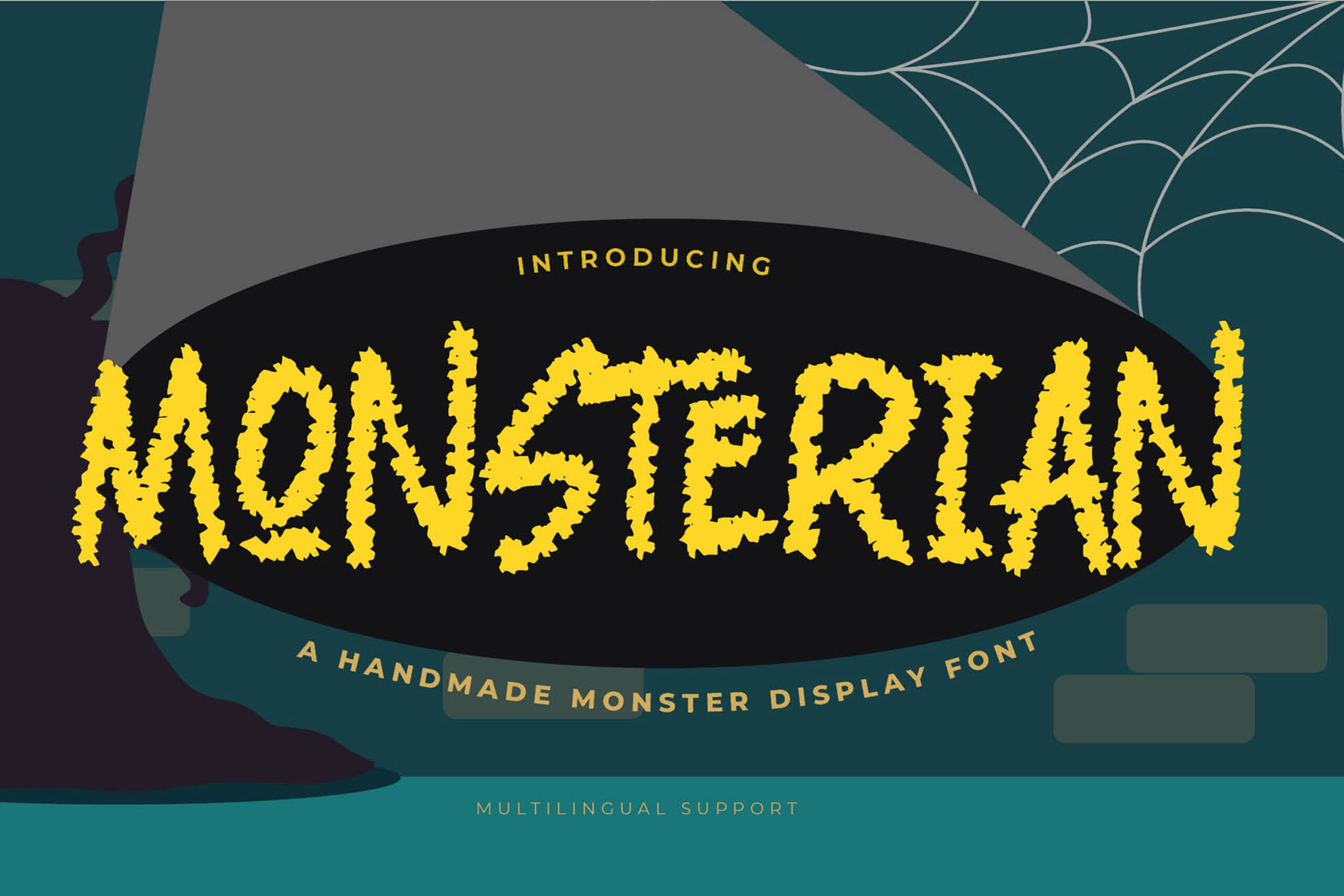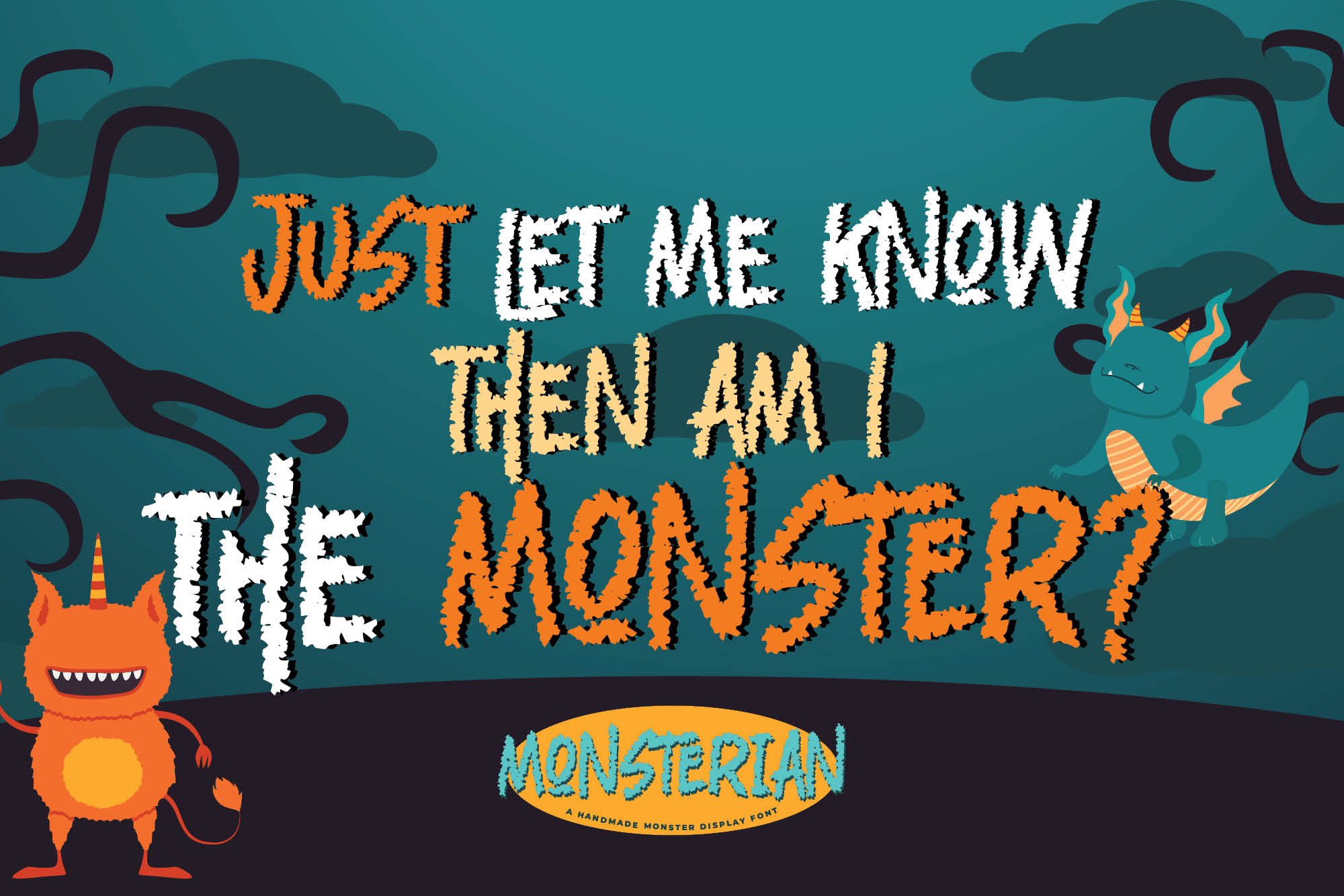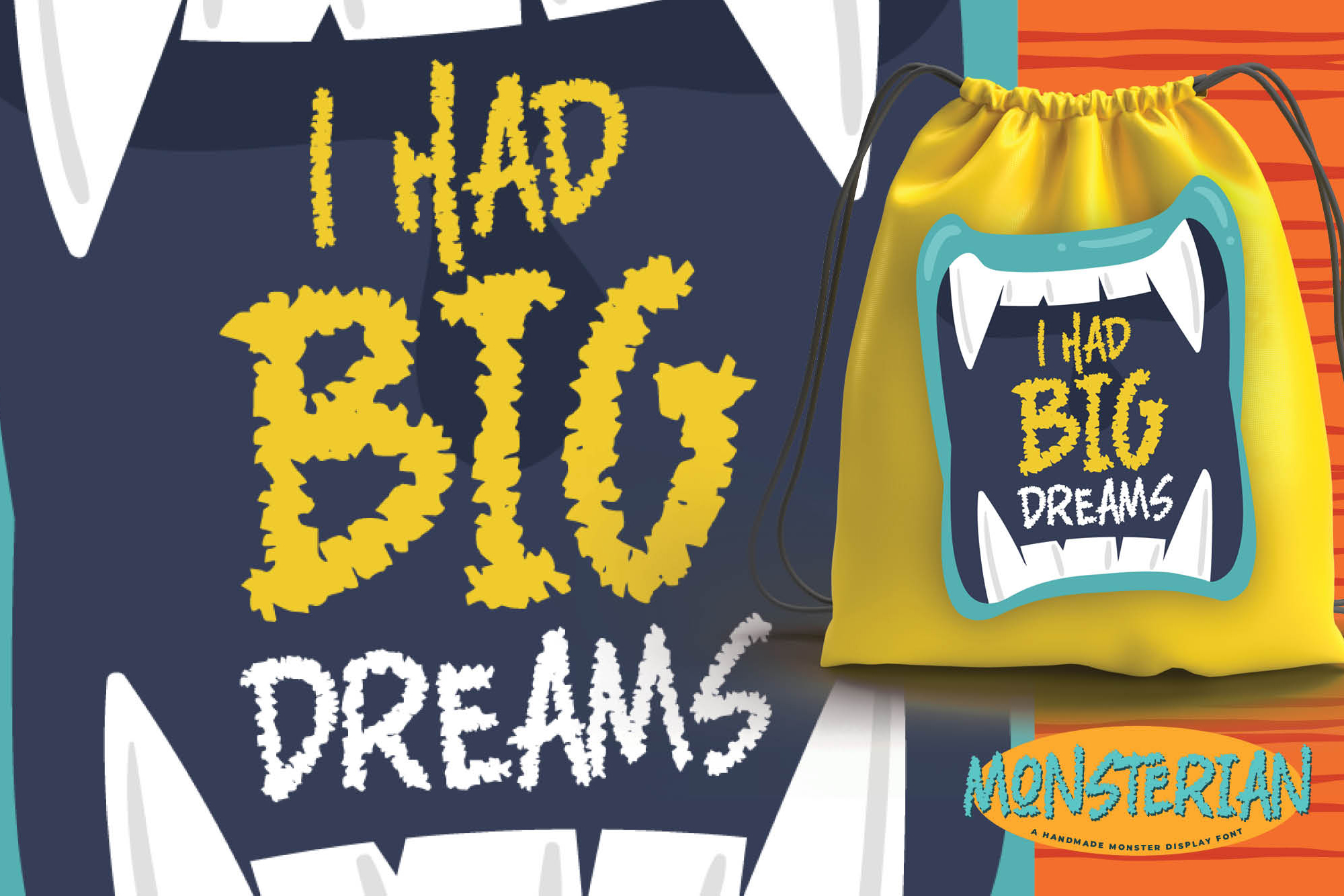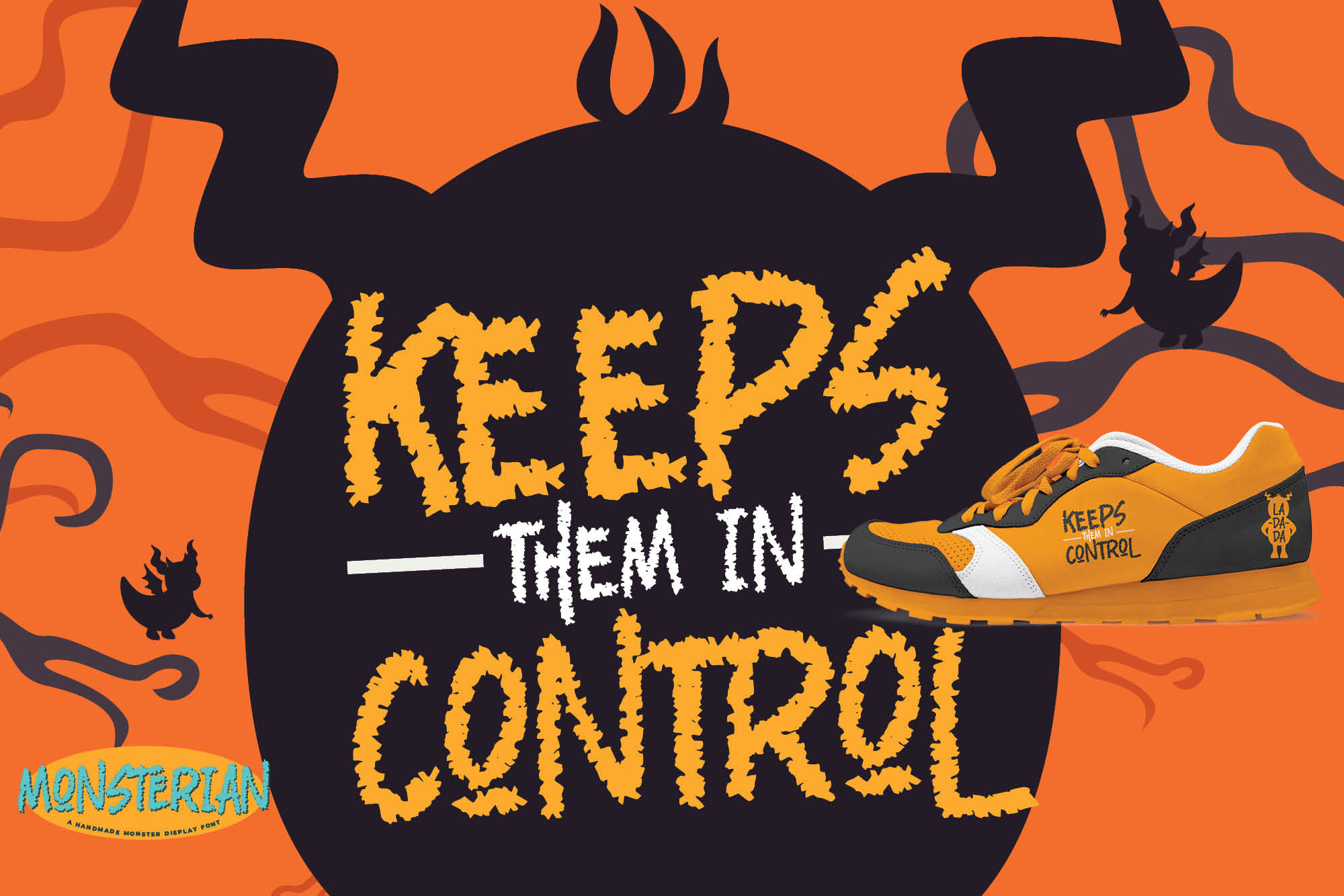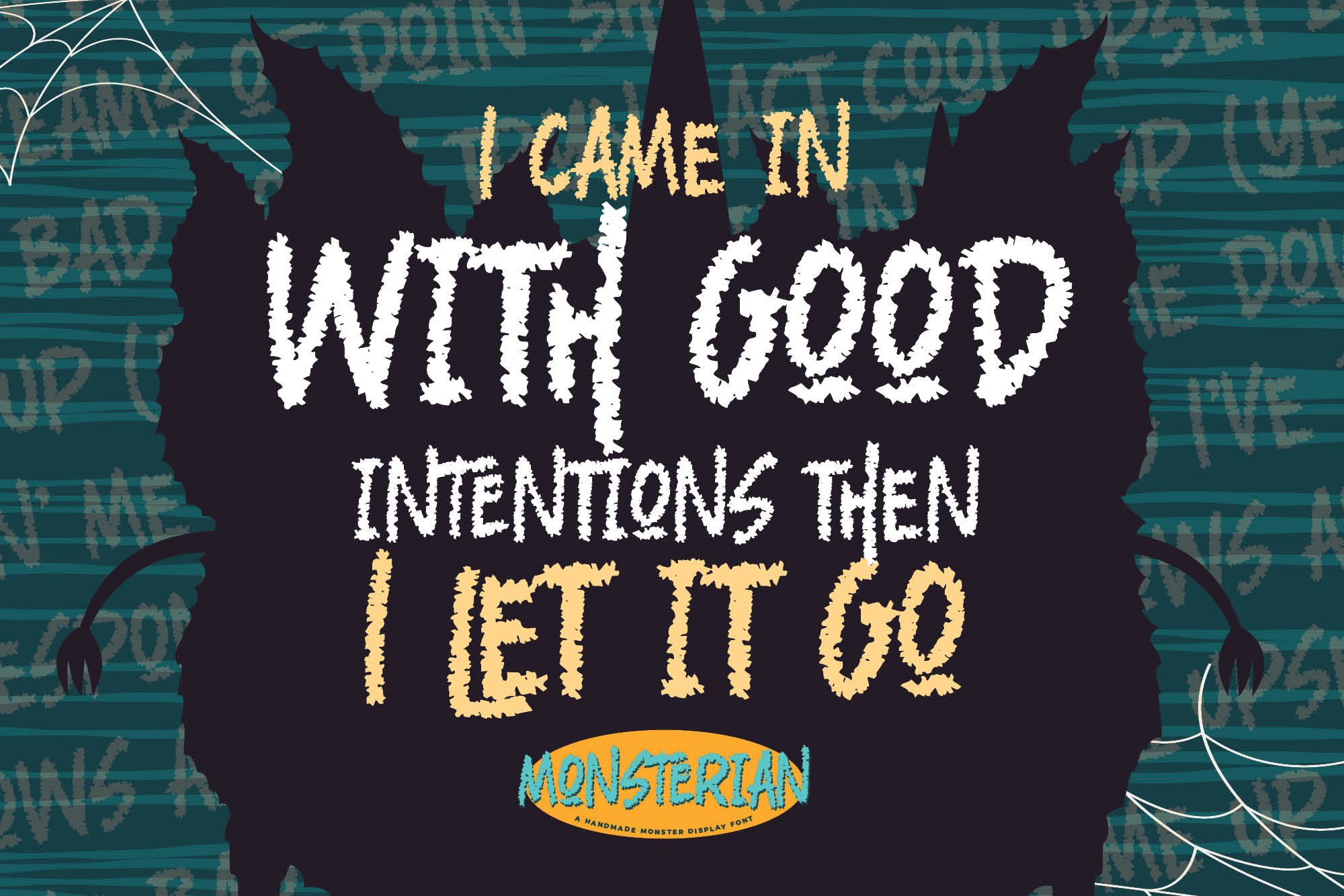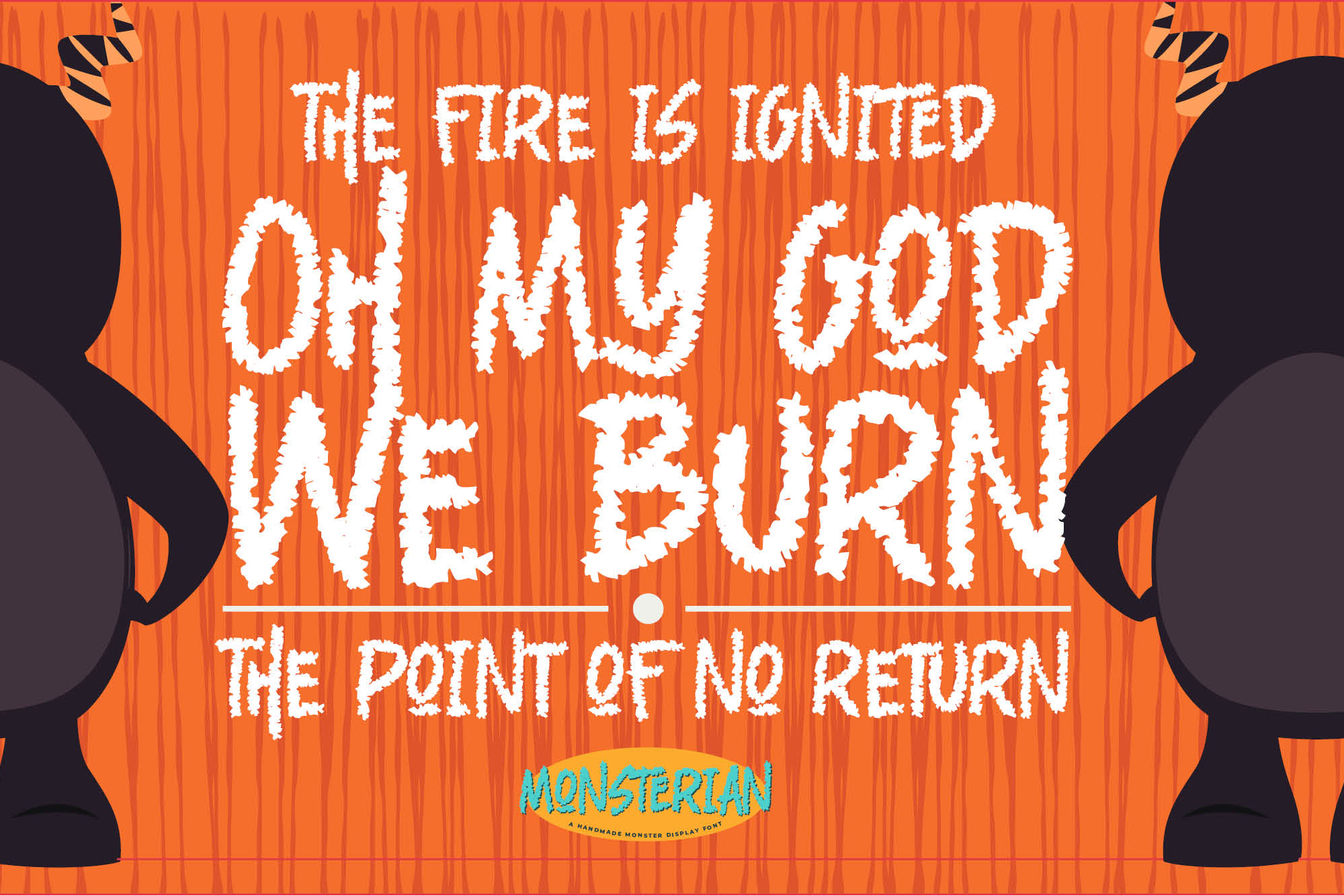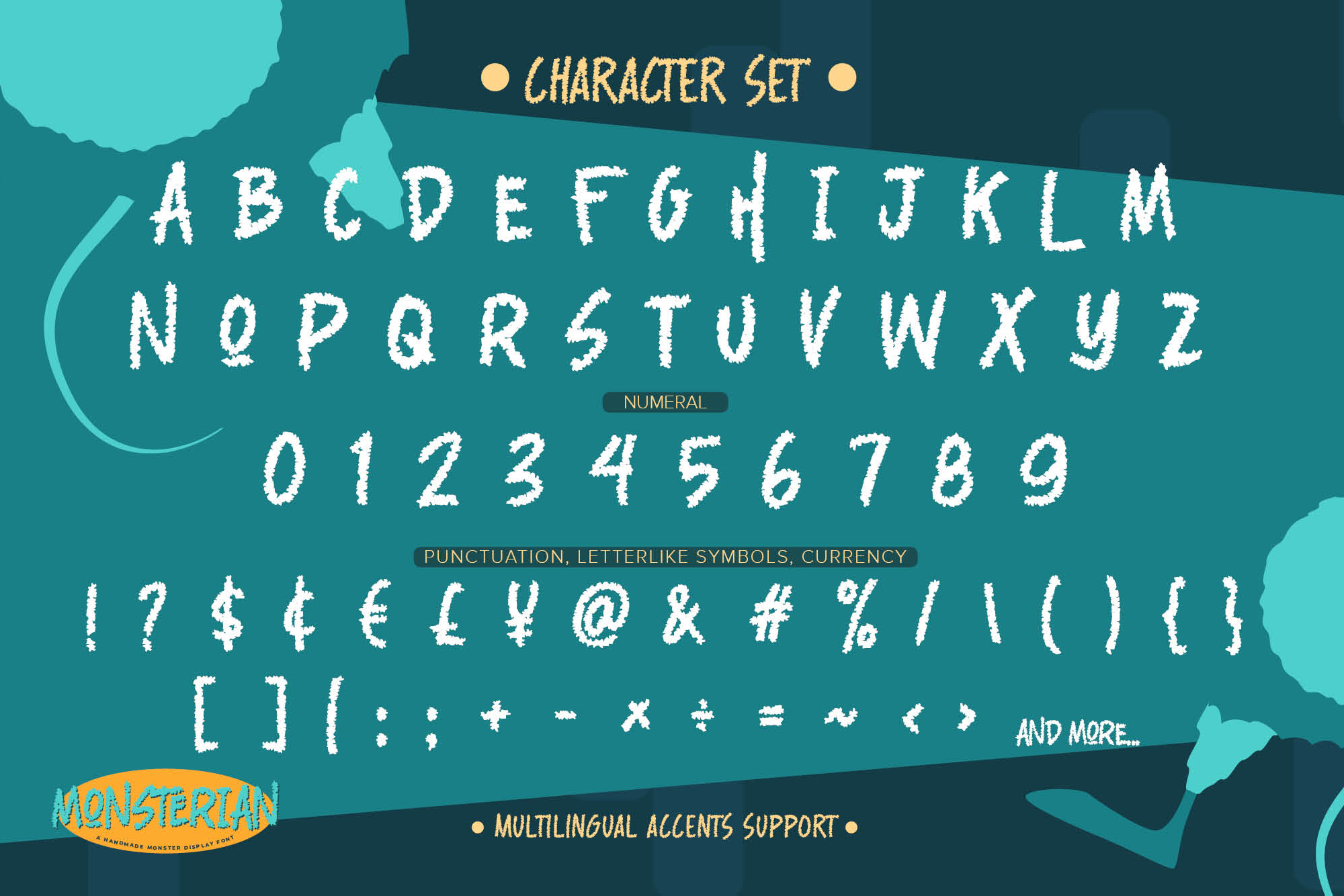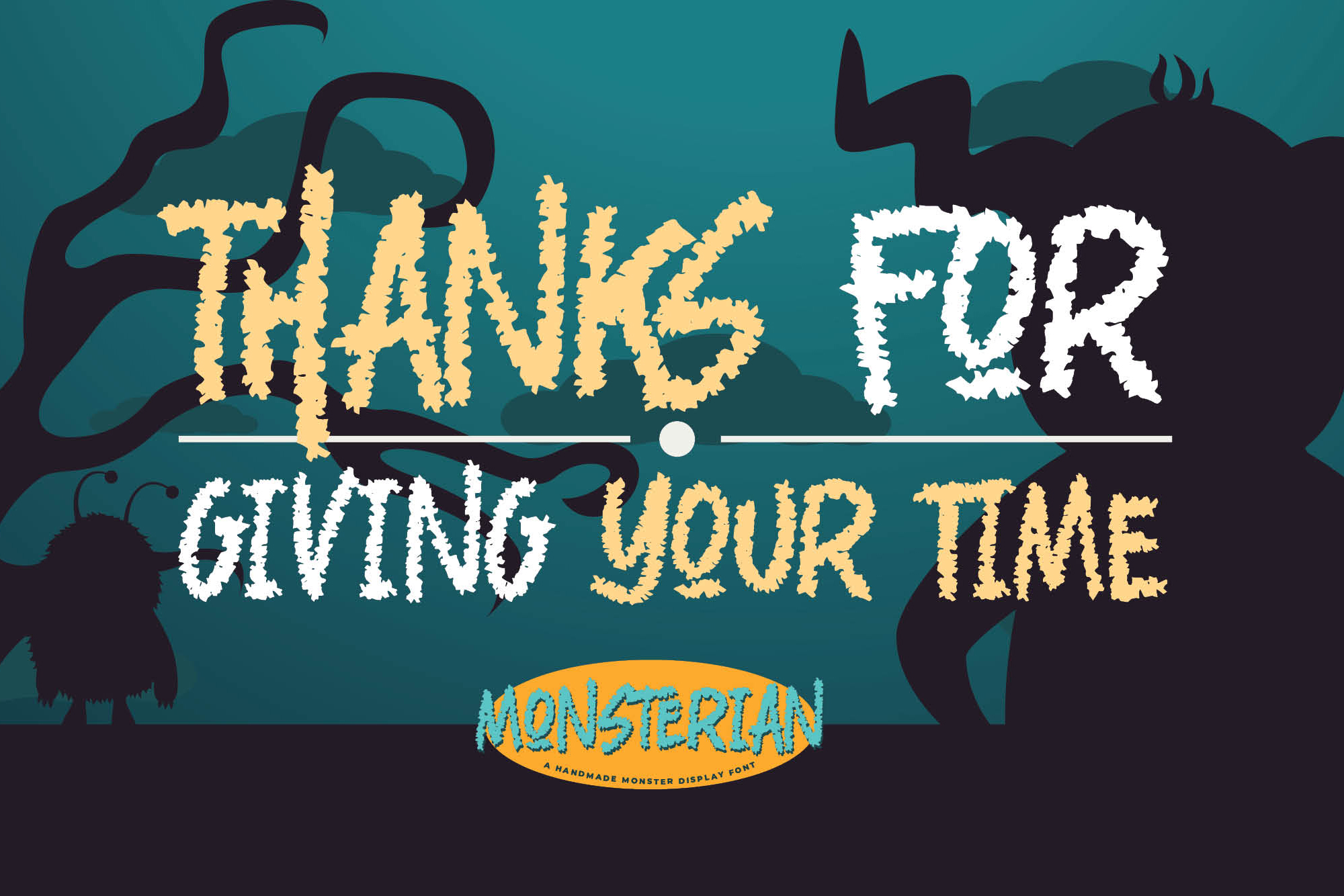
Monsterian – Handmade Moster Display Font ,natural style and dramatic movement that is written casually and quickly.
The best for horror poster,project that need horror vibes , designs look modern, unique and fun. It’s perfect for labels, quotes, posters, DIY projects, branding, packaging, greeting cards, websites, photography overlays, signs, scrapbooking, tags and so much more! graffiti style with a fun theme very good for graffity poster, flyer, childrenbook, cartoon, comic etc.
That is why Monsterian has a Handmade , and unique characteristic more natural look. You can activate Alternates glyphs OpenType panel.